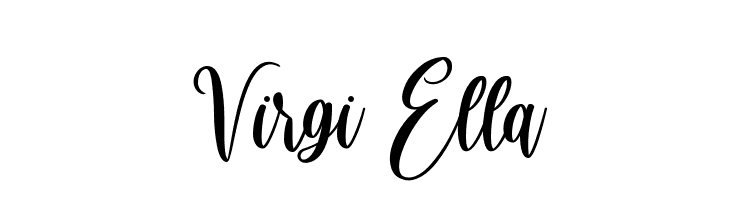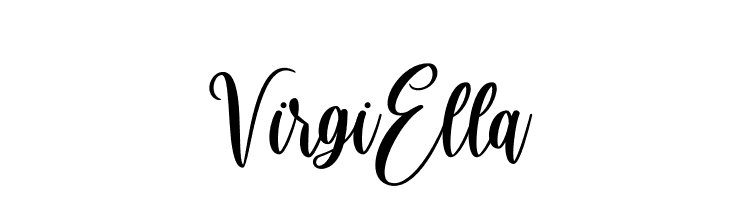
A graceful script font with flowing, connected strokes and elegant flourishes.
A flowing, cursive script with elegant loops and swashes.
A flowing, cursive script font with elegant, handwritten strokes.